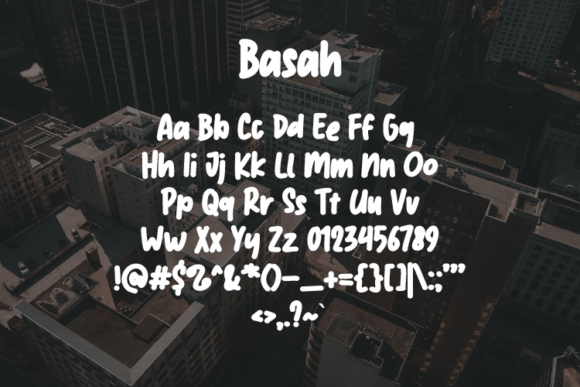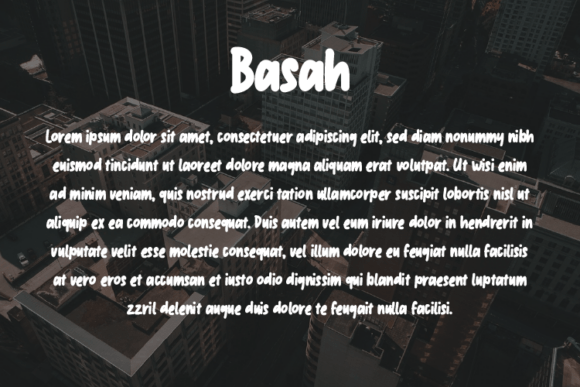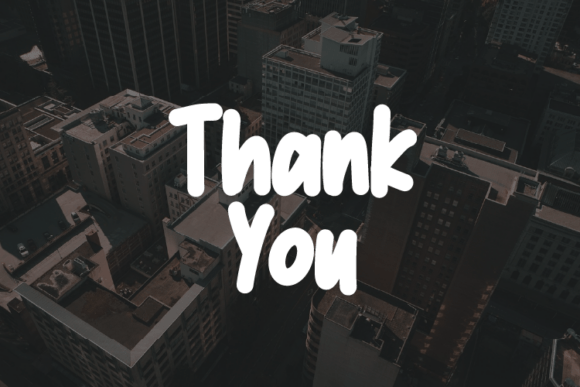
Discover the Elegance of Basah Font: A Modern Typeface for Versatility and Readability
In the world of typography, a font can make or break the visual appeal of a design project. For designers, crafters, and anyone looking to elevate their creative work, the Basah Font stands out as a modern and elegant typeface that offers flexibility and excellent readability across a wide range of media. Whether you’re working on a digital project, crafting a brand identity, or simply looking for a font that can seamlessly integrate into your workflow, Basah is an exceptional choice.
What Makes Basah Font Special?
Basah Font is designed with the contemporary designer in mind. Its sleek lines, balanced proportions, and elegant curves make it perfect for projects that demand a touch of sophistication. Here are some key features that set Basah apart:
- Modern and Elegant Design: Basah boasts a modern aesthetic that is both stylish and timeless. Its elegant design ensures that your text stands out, whether it’s used for headings, body text, or captions.
- Flexibility Across Media: One of the standout features of Basah is its versatility. It performs exceptionally well across various media, from digital screens to print materials. This makes it an ideal choice for designers who work on multi-platform projects.
- Excellent Readability: Readability is crucial for any font, and Basah excels in this area. Its clear and well-defined characters ensure that text is easy to read, even at smaller sizes.
Use Cases for Basah Font
The versatility of Basah Font makes it suitable for a wide range of design projects. Here are some scenarios where Basah truly shines:
- Branding and Logos: Create a lasting impression with Basah’s elegant and modern aesthetic. It’s perfect for crafting logos, wordmarks, and brand identities that exude sophistication.
- Digital Content: Enhance your digital content with a font that looks great on screens. Basah is ideal for websites, blogs, social media graphics, and digital marketing materials.
- Print Materials: For print projects such as brochures, flyers, posters, and business cards, Basah provides a professional and polished look.
- Packaging Design: Add a touch of elegance to your product packaging with Basah. Its readability and stylish design make it perfect for product labels and packaging materials.
How to Use Basah Font Effectively
To make the most of Basah Font, consider the following tips:
- Pairing: Combine Basah with complementary fonts to create visual interest. Its modern design pairs well with both serif and sans-serif fonts.
- Hierarchy: Use different weights of Basah to establish a visual hierarchy in your design. This helps in guiding the reader’s eye through the content.
- Color: Experiment with different colors to enhance the impact of Basah. The font works well with both bold and subtle color schemes.
Basah Font is a versatile and elegant typeface designed to meet the needs of modern designers. Its excellent readability, flexibility across media, and superior technical compatibility make it an invaluable addition to any designer’s toolkit. Whether you’re working on a digital project, print materials, or crafting a brand identity, Basah is a reliable and stylish choice. Embrace the elegance of Basah Font and elevate your design work to new heights.